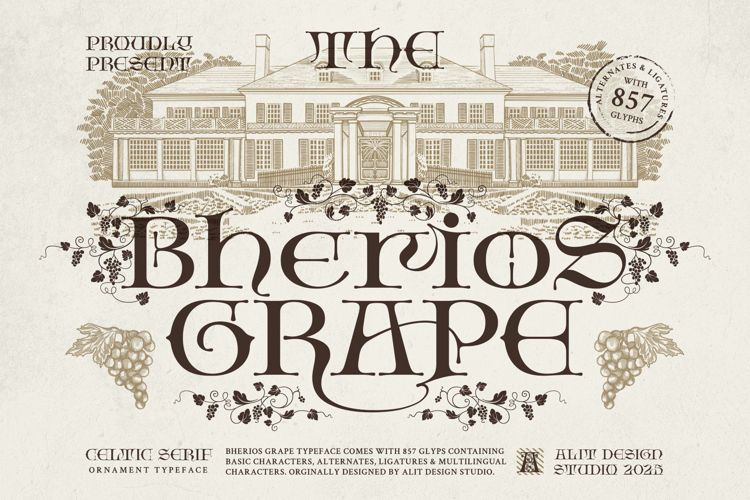
Bherios Grape Font
Bherios Grape Typeface
Step into a world of timeless elegance with Bherios Grape, a classic serif typeface that masterfully blends historical charm with intricate natural beauty. This font evokes the stately sophistication of a bygone era, drawing inspiration from early 20th-century European craftsmanship and vintage print, reminiscent of the detailed artistry seen around the World War I period.